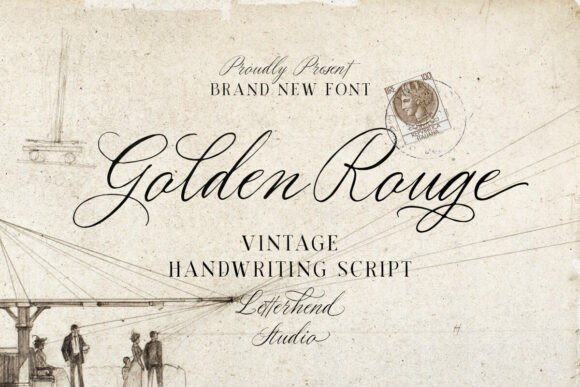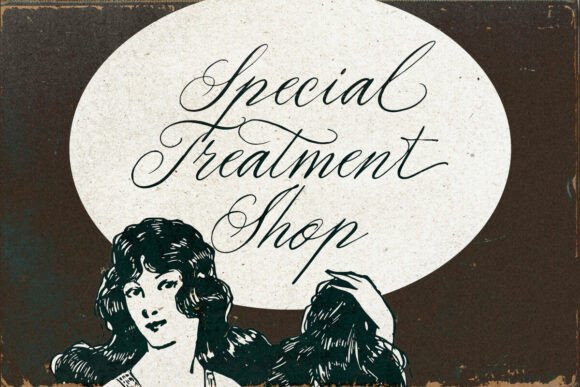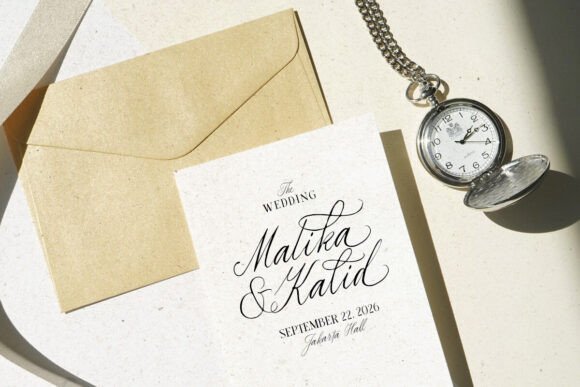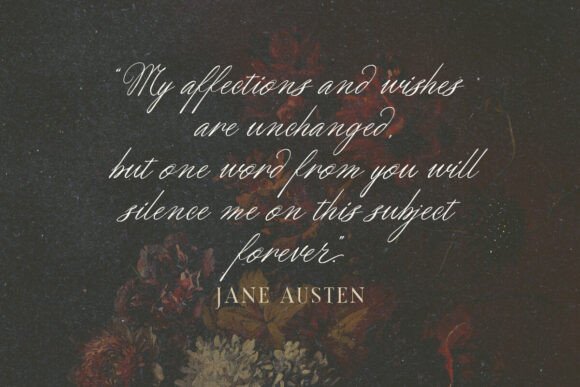
Golden Rouge Font
About the Golden Rouge Font
Crafted with precision, the Golden Rouge Font is ready to bring your ideas to life. Introducing Golden Rouge – a typeface inspired by vintage script style. With a range of stylistic alternates, ligatures, and swashes, this font offers versatility for creating lettering with a natural, handcrafted feel.
Golden Rouge is perfect for applications such as logos, invitations, labels, magazines, books, greeting and wedding cards, packaging, fashion, makeup branding, stationery, novels, and any advertising purpose. Let this font add an elegant, timeless touch to your designs.
Golden Rouge’s elegant, vintage-inspired style excels in headlines, short-form text, and branding applications where a touch of classic sophistication is desired. It’s ideal for logos, invitations, and packaging for high-end products or luxury brands. However, its ornate nature makes it less suitable for body text or UI elements where readability is paramount. Avoid using it for large blocks of text.
Pair Golden Rouge with a clean sans-serif like Montserrat or Lato for a balanced contrast, allowing the script’s detail to shine. For a more vintage feel, consider pairing it with a serif like Garamond or Playfair Display. Avoid pairing it with other highly decorative fonts, as this could lead to visual clutter.
Its core personality is sophisticated and timeless, conveying a sense of luxury and refinement. It’s best suited for projects aiming for a classic, high-quality aesthetic, rather than a modern or minimalist approach.
Golden Rouge Font Usage Examples
Golden Rouge Font Example